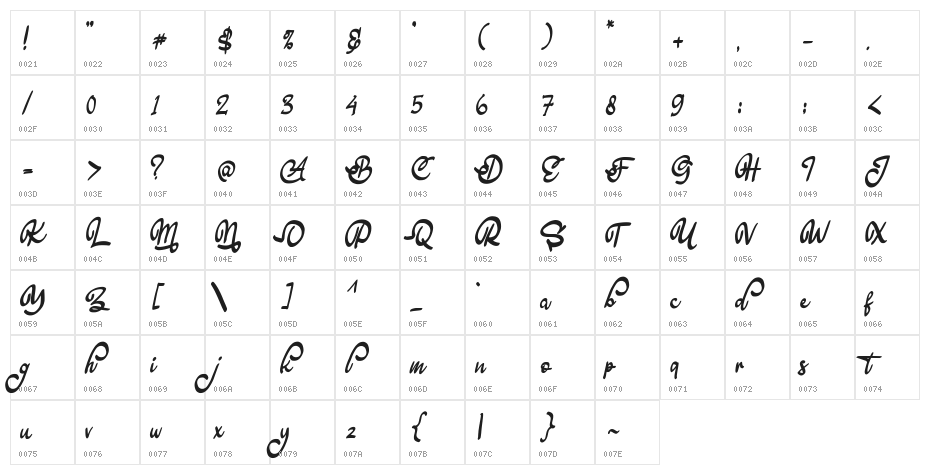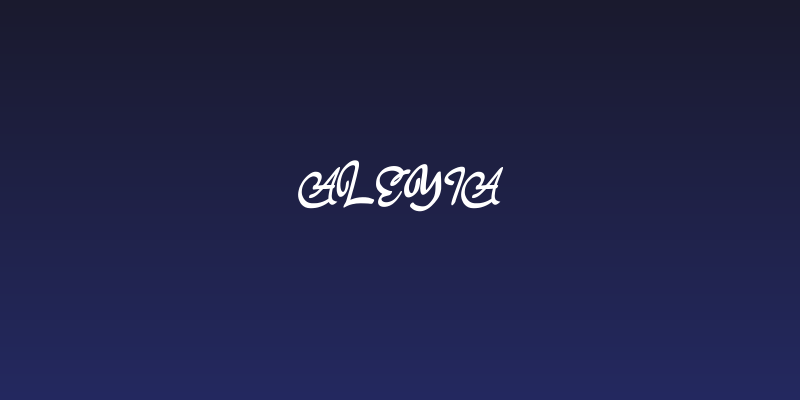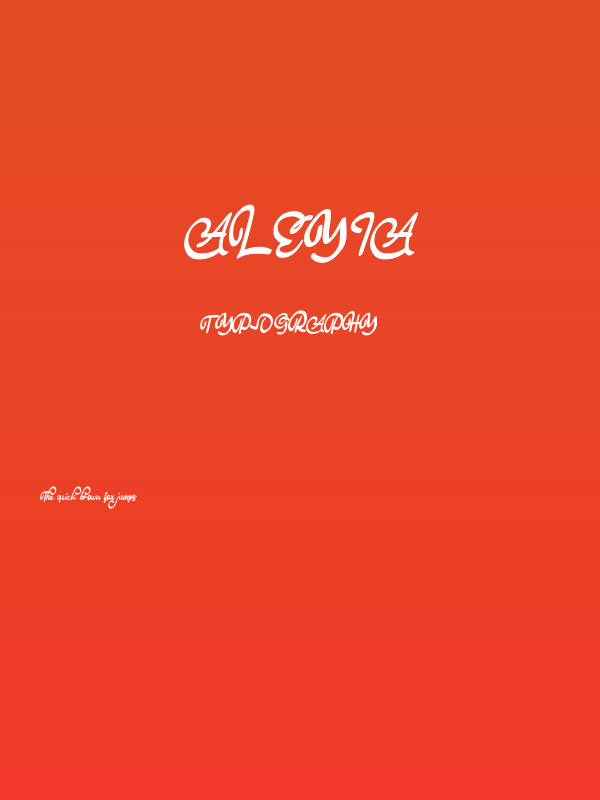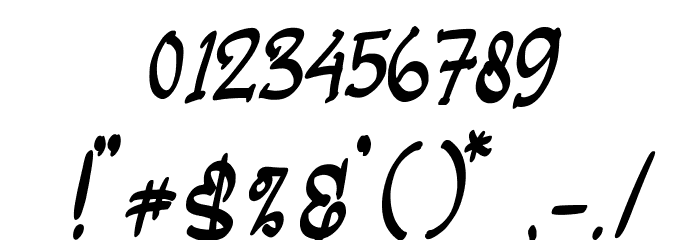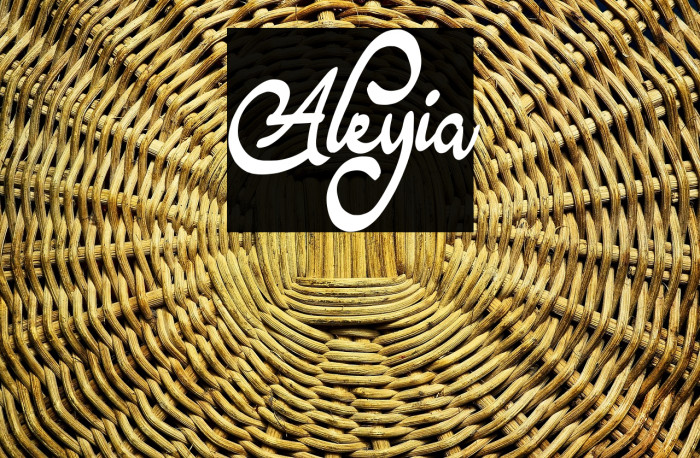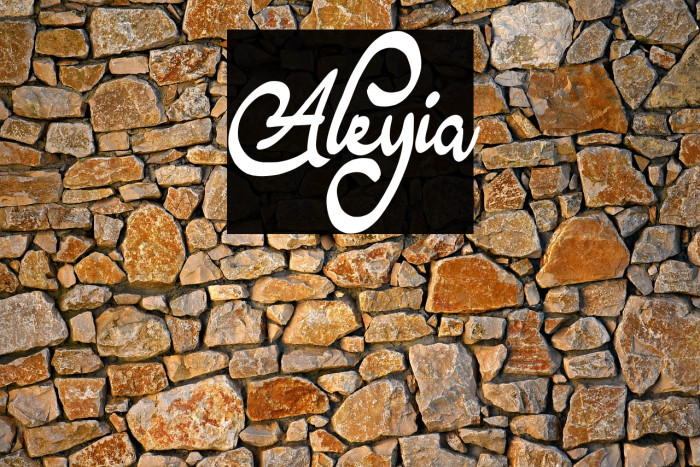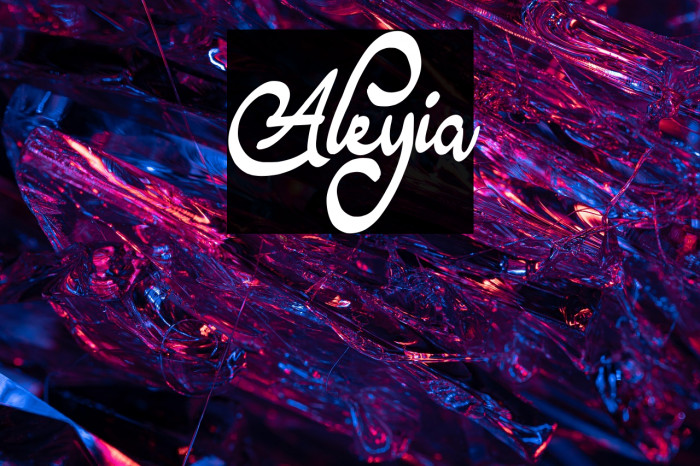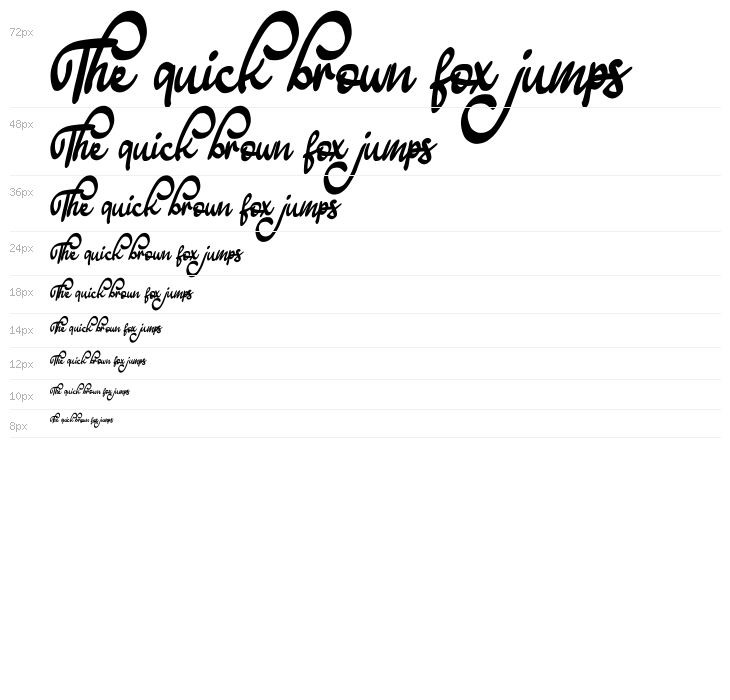
Aleyia Font
Aleyia Description
This font features an elegant and flowing script style, characterized by its smooth, cursive strokes and intricate loops. The uppercase letters exhibit a sophisticated flair with decorative swashes, while the lowercase letters maintain a consistent fluidity, enhancing readability. The numerals are designed with a similar cursive approach, ensuring uniformity across the character set. Special characters are thoughtfully integrated, maintaining the font's overall aesthetic. This font is ideal for projects that require a touch of elegance and sophistication, such as invitations, branding, and decorative headings.
ALEYIA UPPERCASE
ALEYIA LOWERCASE
ALEYIA OTHER CHARS
| Proposed Projects | Ideal for wedding invitations, luxury branding, decorative headings, and elegant signage. |